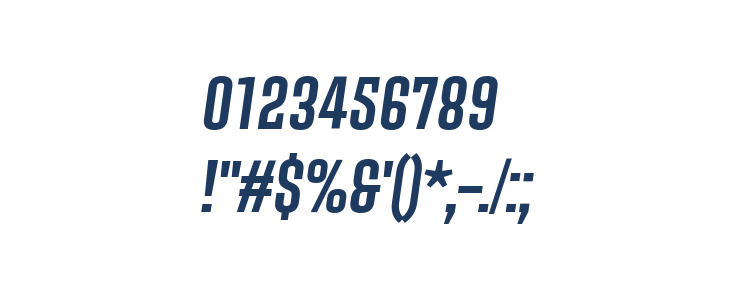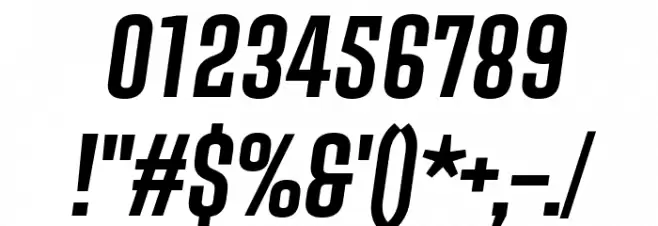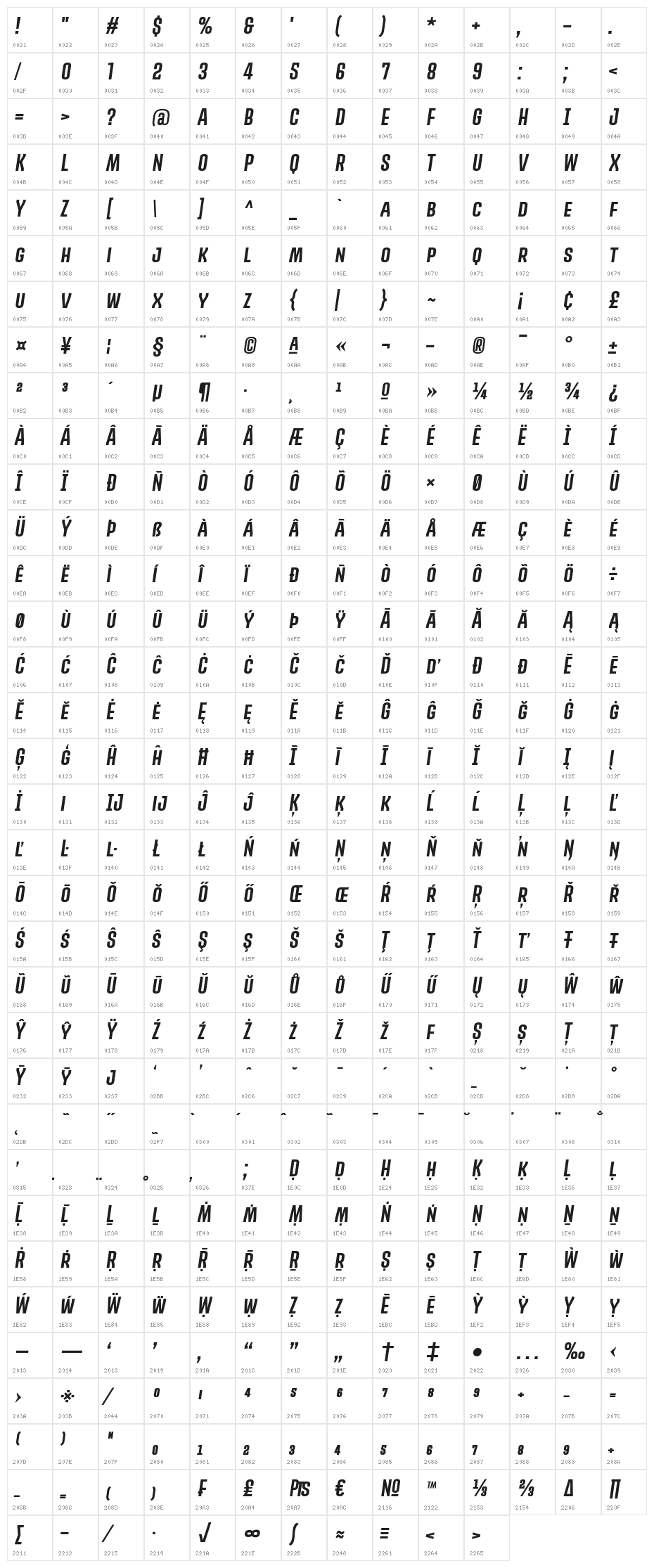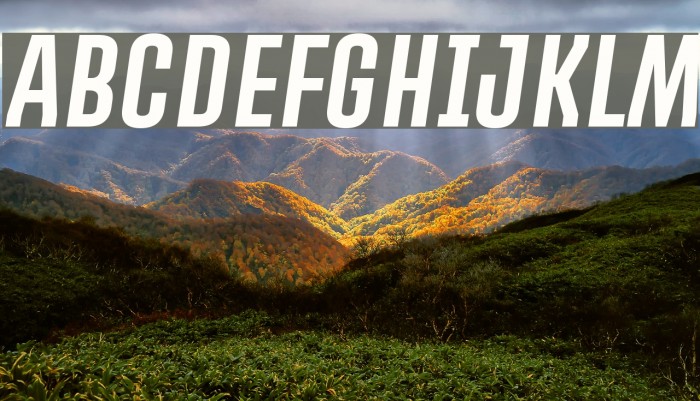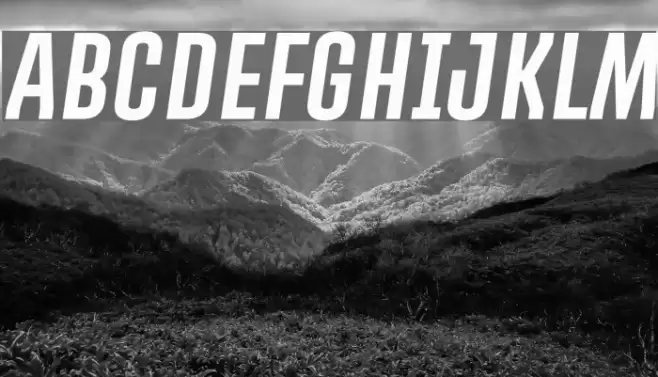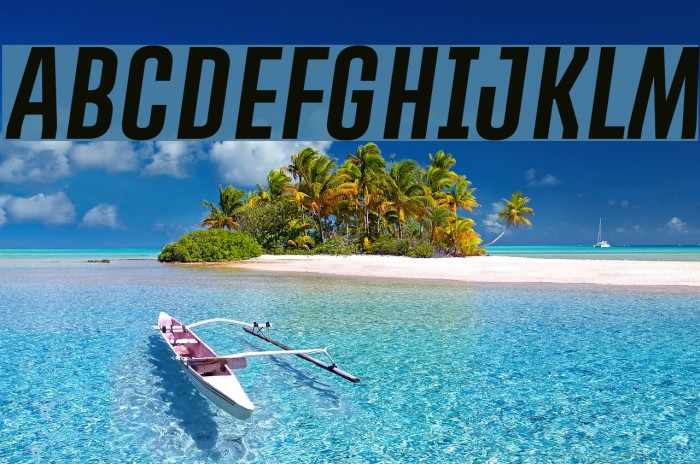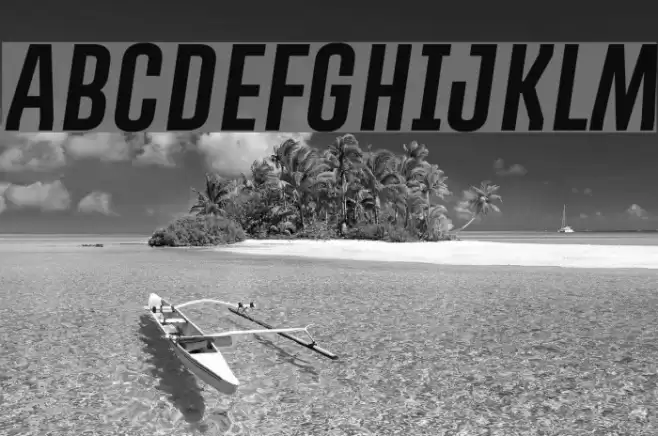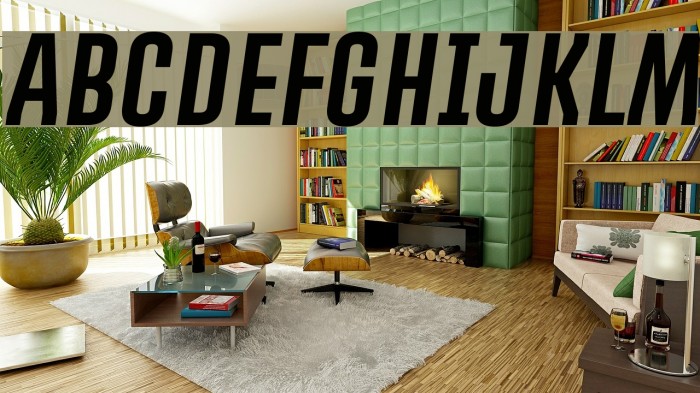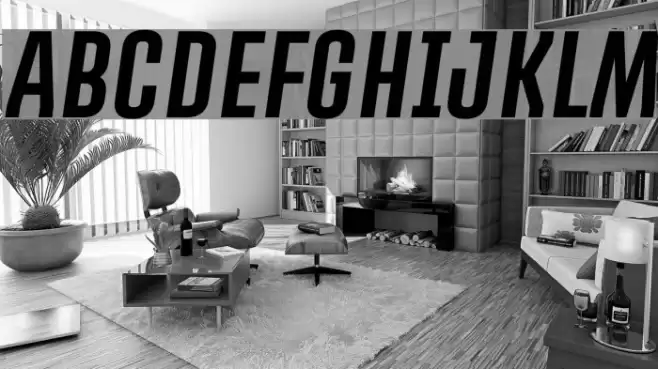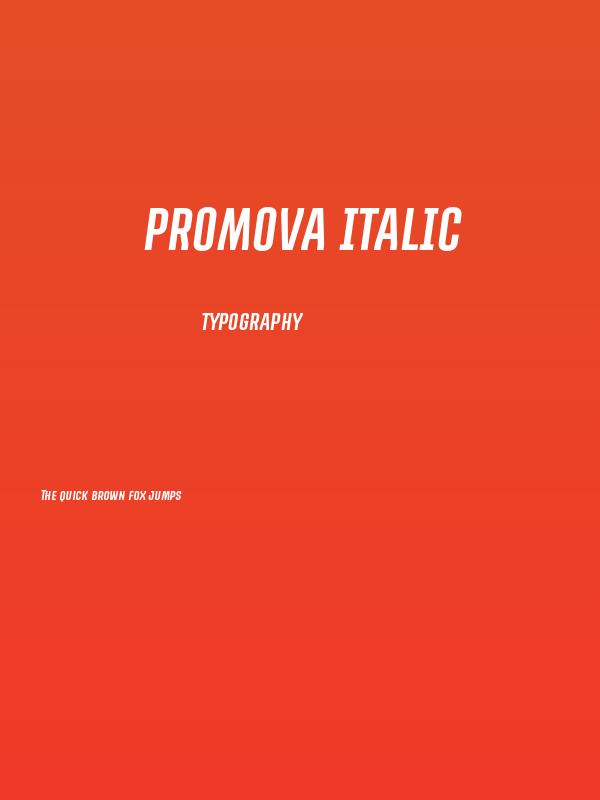
PROMOVA Italic Font
PROMOVA Italic Description
This typeface features a bold, italicized style with a strong presence. The characters are slightly condensed, giving a sleek and modern appearance. The strokes are consistent in thickness, providing a uniform look across all characters. The slant of the letters adds a dynamic and forward-moving feel, making it suitable for attention-grabbing headlines or impactful statements. The numerals and special characters maintain the same bold and italicized characteristics, ensuring cohesion throughout the font set.